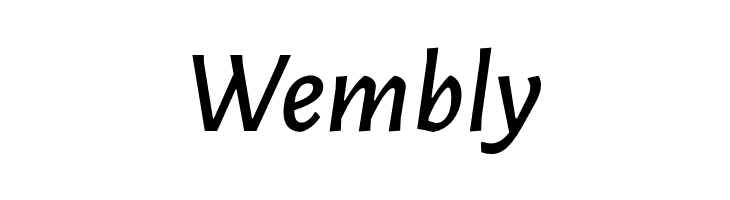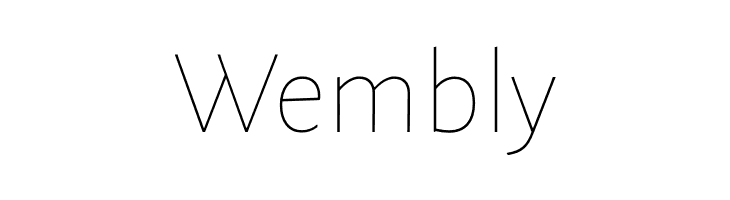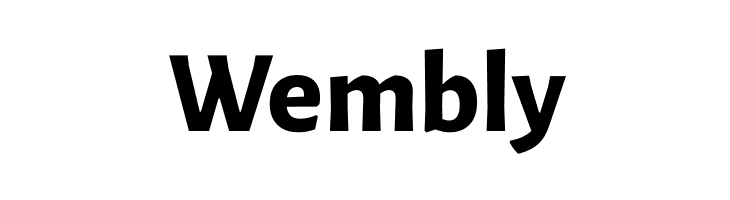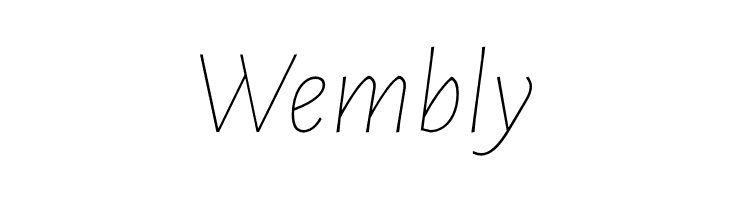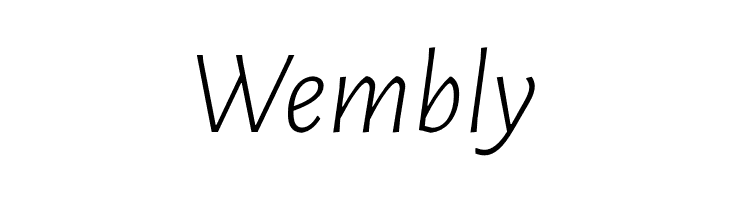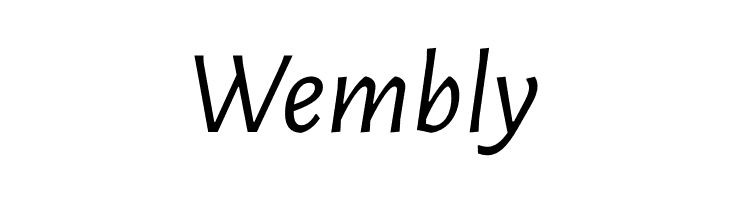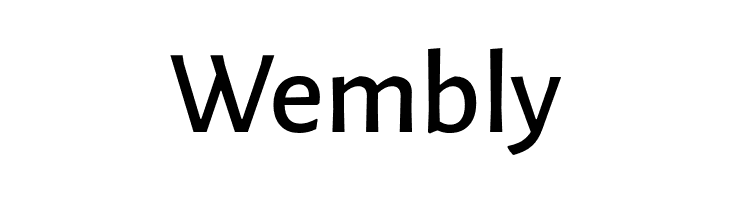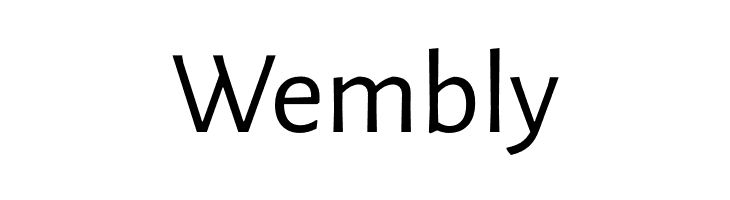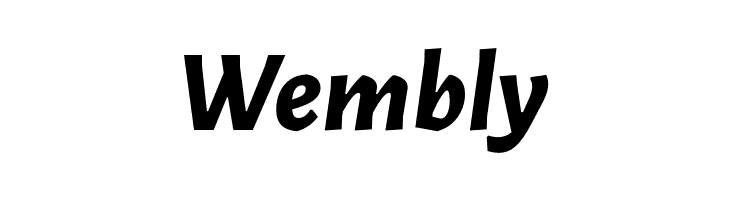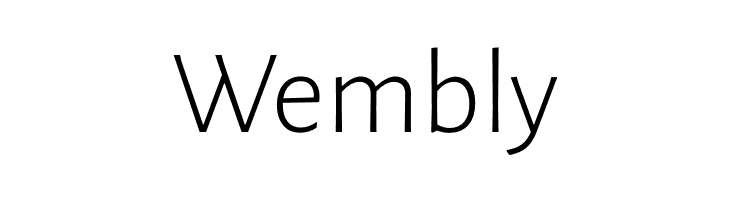
A modern, semi-bold italic sans-serif font with medium contrast and normal spacing.
A modern, thin sans-serif font with clean lines and balanced spacing.
A sleek, modern, and thin italic font with elegant strokes.
A bold, modern font with clean lines and strong presence.
A bold and italic font with strong, dynamic strokes and a slight slant.
A bold, italic font with high contrast and modern appeal.
A bold and robust font with thick strokes and a strong presence.
A sleek, extra-light italic font with a modern and elegant style.
A sleek, modern extra-light font with a minimalist design.
A sleek, light, and italicized font with a modern and elegant style.
A modern, light sans-serif font with clean lines and a professional appearance.
A clean and modern sans-serif font with excellent readability.
A modern, italic font with sleek and elegant character design.
A semi-bold italic font with a modern, elegant style and medium contrast.
A modern sans-serif font with a semi-bold weight and slightly condensed width.
A modern sans-serif font with clean lines and excellent readability.
A bold, modern typeface with strong geometric shapes and uniform strokes.
A bold, italicized font with thick strokes and a modern, dynamic style.
A modern, italic sans-serif font with clean lines and balanced proportions.
A modern, light sans-serif font with low contrast and excellent readability.
A sleek, modern, light italic font with smooth curves and a minimalistic design.
A bold, italic sans-serif font with a modern and dynamic style.
A modern, clean sans-serif font with uniform stroke width and excellent readability.
A sleek, modern sans-serif font with a light, italic style.